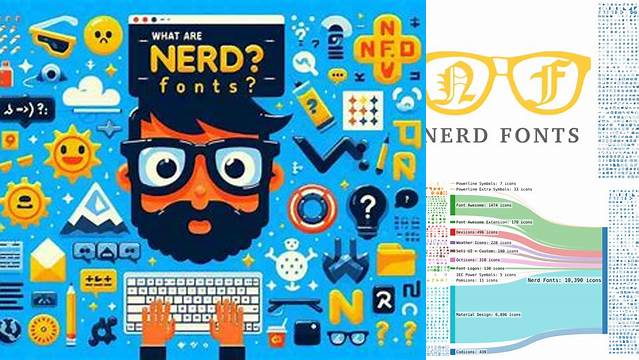
Nerd Fonts On Windows WSL: Your Ultimate Guide
Introduction to Nerd Fonts and Why You Need Them on WSL
Hey guys! If you're diving into the world of Windows Subsystem for Linux (WSL), you're probably looking to pimp out your terminal. And trust me, one of the absolute best ways to do that is with Nerd Fonts. But what are they, and why should you care? Well, let's break it down. Essentially, Nerd Fonts are a collection of patched fonts that include a ton of extra glyphs and icons. Think of them as regular fonts but with superpowers. These superpowers come in the form of those sweet, sweet icons you see in your terminal: file type icons, git status indicators, powerline symbols, and a whole bunch of other visual goodies that make your terminal look way more aesthetically pleasing and functional.
Now, why is this so important on WSL? Because when you're working in the Linux environment within Windows, your terminal is your primary interface. It's where you run commands, manage files, and generally do your thing. A well-configured terminal with a good font can significantly improve your workflow. Having those icons readily available provides instant visual cues, making it easier to understand what's going on at a glance. For example, instead of just seeing "README.md", you'll see a little markdown icon next to it. This level of visual feedback makes your terminal experience more intuitive and less prone to errors. It's like having a heads-up display for your coding life, allowing you to focus on the actual work rather than deciphering plain text. Furthermore, Nerd Fonts enhance the readability of your terminal output, particularly when using tools like ls -l
or when navigating through complex directory structures. The added visual cues help you quickly grasp the information presented, reducing cognitive load and boosting your overall productivity. The different glyphs and symbols will help you navigate through complex directory structures with ease. They help you to quickly understand what is going on, and you can do what you want to do without a problem. That is why you need them on your system. If you're a developer, a system admin, or just someone who spends a lot of time in the terminal, a good font is a must. Choosing a Nerd Font is a bit of a personal choice, but I will give you the best choices so that you will not have to research much.
Choosing the Right Nerd Font: Key Considerations
Alright, so you're sold on the idea of Nerd Fonts. Awesome! But with a massive selection of fonts available, how do you choose the right one for you? It's not just about picking the font that looks the coolest; there are a few key considerations to keep in mind. First and foremost is the font's coverage. Make sure the font supports the glyphs you need. Some fonts are more comprehensive than others, meaning they include a wider range of icons and symbols. If you're a heavy user of Git or use a terminal theme, make sure the font includes those symbols. Another important factor is monospace. You'll want a monospaced font, where each character takes up the same amount of horizontal space. This is crucial for aligning text in your terminal, making it easier to read code, and preventing things from looking wonky. A monospace font will ensure that your terminal is always neatly organized. Next, think about readability. Some fonts are designed to be highly readable, with clear letterforms that are easy on the eyes, even after long hours of staring at the screen. This is especially important if you spend a lot of time in the terminal. Look for fonts with a good x-height (the height of lowercase letters like 'x') and a generous amount of space between characters. It's essential to find a font that doesn't strain your eyes. Then there's the aesthetic. Ultimately, you'll want a font you like the look of. This is totally subjective, but the aesthetics of your terminal are important, right? Do you prefer a clean, modern look or something a little more retro? There are lots of different choices to fit your taste. Common choices include "Fira Code", "MesloLGS NF", and "Hack". Experiment with a few different fonts to see what works best for you. Finally, consider the font's license. Most Nerd Fonts are open-source and free to use, but it's always a good idea to check the license before you install it. Make sure you understand the terms of use, especially if you're using the font for commercial purposes. Keep these things in mind, and you will not have problems choosing the perfect font for your terminal.
Troubleshooting Common Nerd Font Issues on WSL
Sometimes, things don't go perfectly, right? Let's talk about common issues you might encounter when using Nerd Fonts on WSL and how to troubleshoot them. First off, the font not displaying correctly. This is the most common problem. If you see boxes, question marks, or missing icons instead of the Nerd Font glyphs, it means your terminal isn't rendering the font correctly. Double-check that you've selected the right font in your terminal settings. Make sure you've chosen the version of the font that includes "NF" or "Nerd Font" in the name. Then, try restarting your terminal to see if that solves it. Another thing to try is to select a different font and then reselect your Nerd Font. Occasionally, the terminal gets confused, and this will resolve the problem. If you're still having issues, check if the font is installed correctly on your Windows system. Go to your Windows font settings (search for "fonts" in the Start menu), and verify that the Nerd Font is listed. Also, sometimes it can be caused by problems with the shell itself. If you're using a shell like Zsh or Bash, it may be that the shell isn't set up to use Nerd Fonts. Make sure your shell configuration files (e.g., .zshrc
or .bashrc
) are configured to use the font. Many themes are designed to work with Nerd Fonts. If you are using a custom prompt, make sure it is set up to use those fonts. Check the documentation for your theme to see if it has Nerd Font support. Then you have the glyphs not showing in specific applications. Some applications might not automatically recognize and use the Nerd Font glyphs. If this happens, you might need to configure the application to use a specific font. Check the application's settings and look for font options. Other things to look out for are font cache issues. Sometimes, old font information gets cached, which can prevent your new font from displaying correctly. You can try clearing the font cache on your system to resolve this. Restarting your system is often the simplest solution and clears all cached data. Finally, you might have permission issues. In rare cases, the font files might not have the correct permissions, preventing them from being accessed by the terminal or applications. Make sure you have the necessary permissions to access the font files. Most of the time, Nerd Font issues are easily fixable, and with a little bit of troubleshooting, you'll be able to get your terminal looking amazing. Remember to search for the exact error you are facing, and you can find people with similar problems.
Customizing Your Terminal with Nerd Fonts and Themes
Once you've got your Nerd Font installed and working, it's time to take your terminal customization to the next level! You can create a terminal setup that not only looks amazing but also makes you more productive and enhances your workflow. Let's explore the world of themes. You've got your font, so you can now start playing with themes. Themes change the color scheme, prompts, and other visual elements of your terminal. They can significantly impact how your terminal looks and feels. There are tons of pre-built themes available for popular shells like Zsh and Bash, which can be easily installed and configured. Here's how you can apply themes. If you're using Zsh with Oh My Zsh, for example, you can change the theme in your .zshrc
file by setting the ZSH_THEME
variable. Check Oh My Zsh's documentation for a list of available themes. For Bash, you can often customize the prompt in your .bashrc
Conclusion: Level Up Your WSL Experience with Nerd Fonts
So, there you have it! Nerd Fonts are an amazing tool for anyone using WSL on Windows. They enhance your terminal, making it more visually appealing and productive. Throughout this guide, we've covered everything from what Nerd Fonts are, why they're useful, how to install them, how to configure your terminal to use them, troubleshoot issues, and customize your setup with themes and prompts. Implementing Nerd Fonts is a relatively simple process, but the impact they have on your terminal environment is significant. By incorporating these fonts, you'll have a more visually engaging and productive experience. They are very useful for anyone who likes to use the terminal. I hope this guide has helped you to get up and running with Nerd Fonts on Windows WSL. Now go forth, install some fonts, and make your terminal the best it can be. Happy coding, and enjoy the enhanced visual experience!